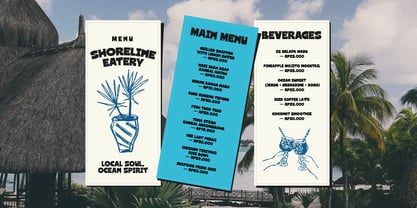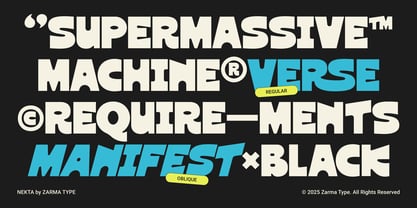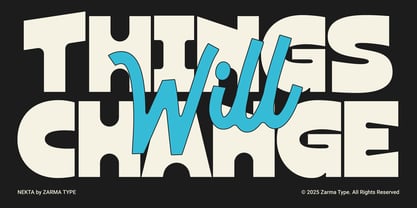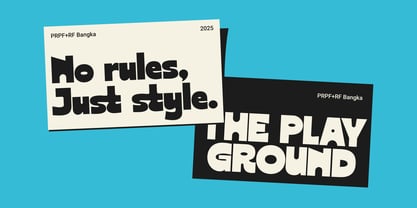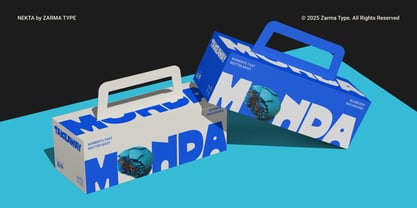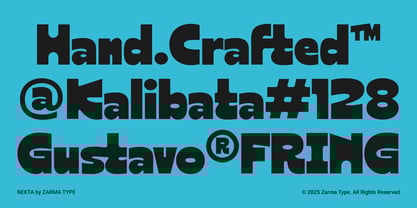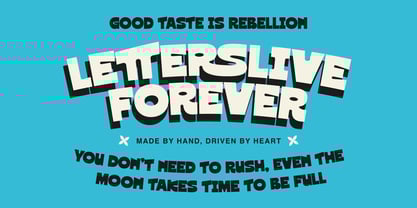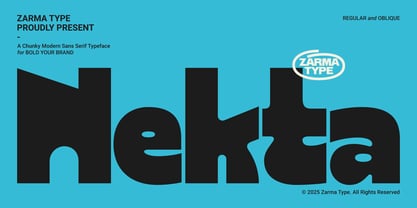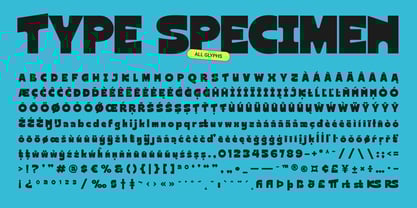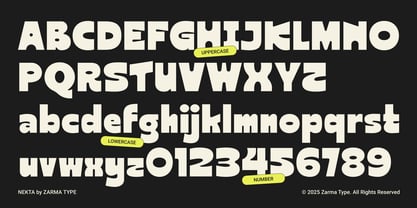
Nekta
by Azzam Ridhamalik
The Nekta Font Family was designed by Azzam Ridhamalik and published by Azzam Ridhamalik. Nekta contains 2 styles and family package options.
Nekta finds the sweet spot between power and warmth. Thick stems and rounded edges project confidence, while generous counters deliver easy reading at a glance. On dark canvases it feels punchy; on bright menu cards it stays crisp and welcoming. When the composition calls for momentum, the available oblique style adds a subtle push that guides the eye. From sports tickets to beach-side labels, Nekta keeps typography consistent across sizes and materials. Alternates and ligatures let you tighten spacing or add personality without losing clarity. Multilingual support ensures a single visual language for global campaigns. And whenever emphasis is needed, tip the headline slightly—the oblique option is available to bring speed and direction.